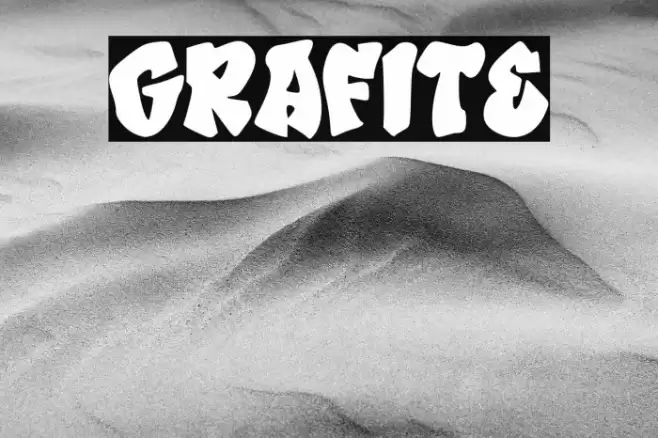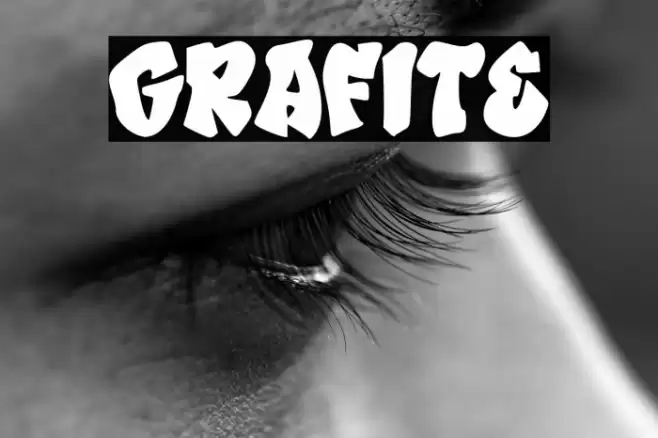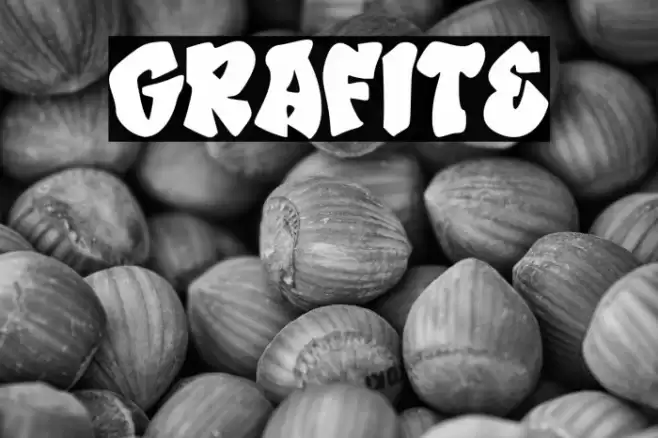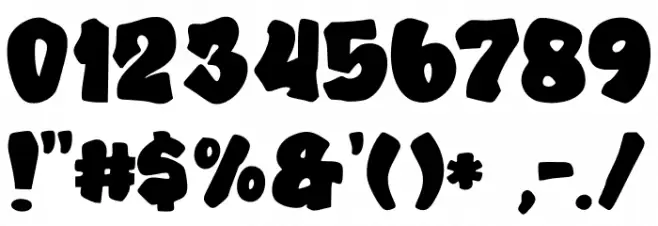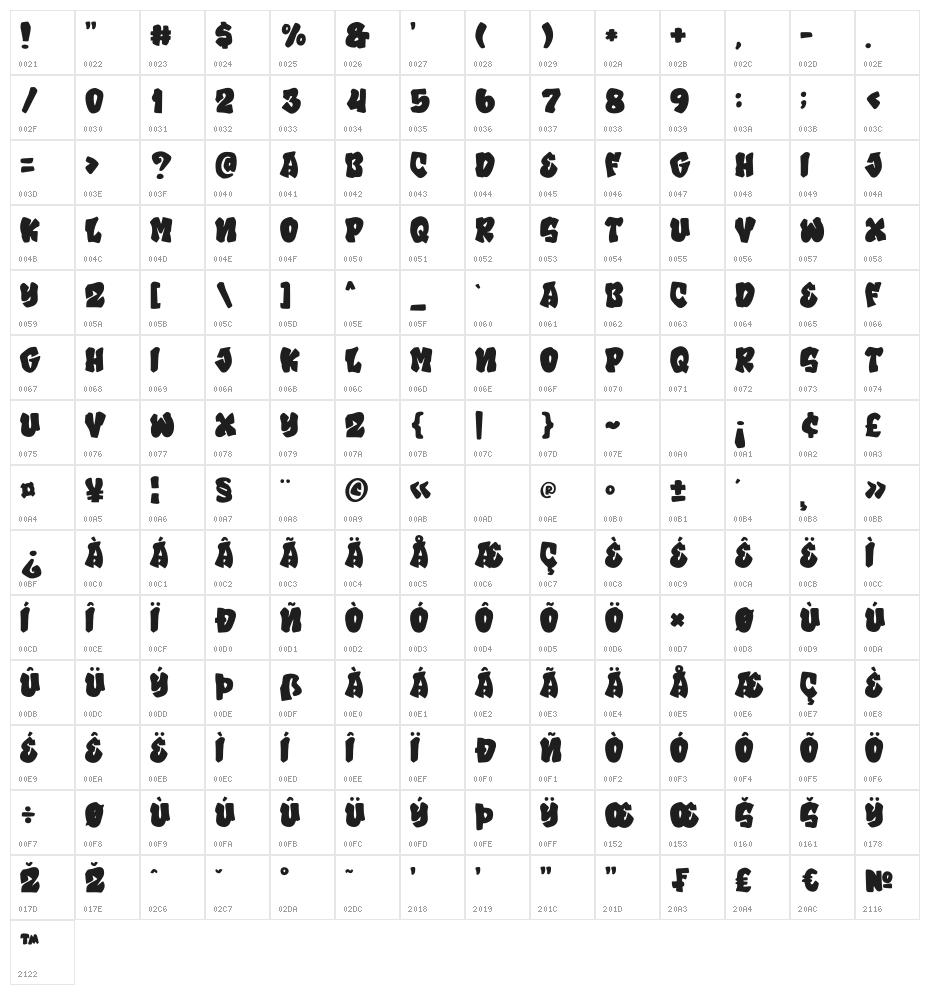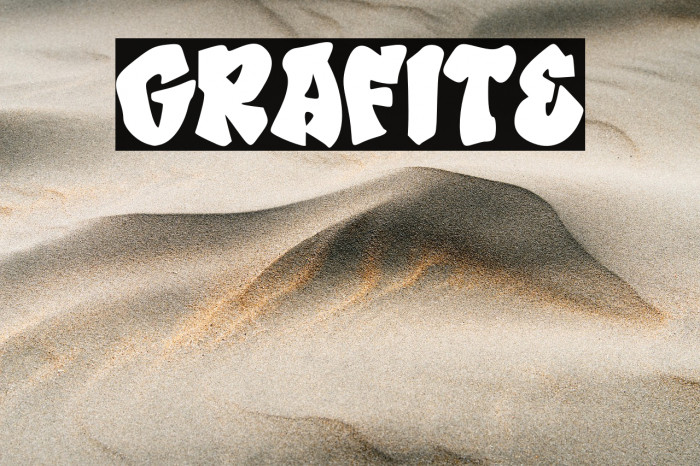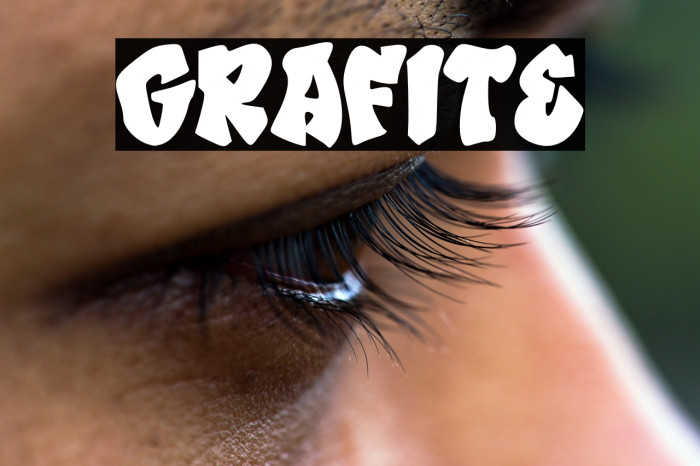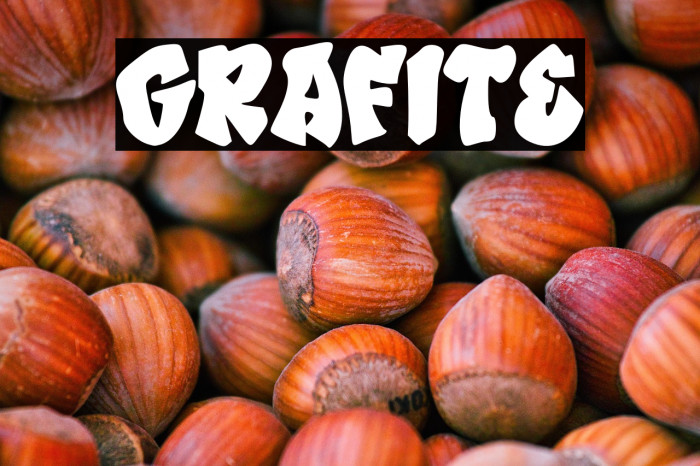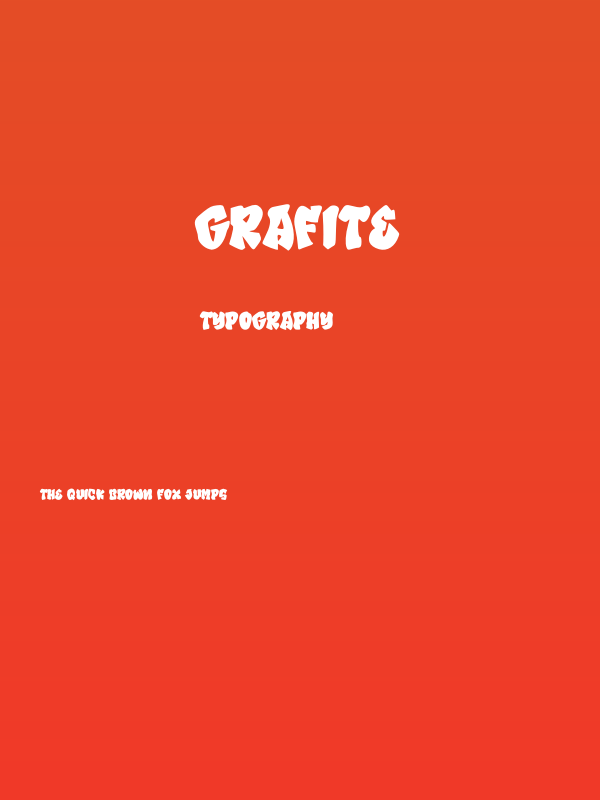
Grafite Font
Grafite Description
This font exhibits a bold and dynamic style, reminiscent of graffiti art. The characters are thick and robust, with an irregular and playful form that captures the essence of street art. The uppercase and lowercase letters maintain a consistent weight, creating a cohesive look. The numbers and special characters follow the same bold and expressive design, making them stand out. This font is ideal for projects that require a strong visual impact and a sense of urban culture.
A bold, graffiti-inspired font with a dynamic and playful style from Uncategorized fonts.
- Proposed Projects: Perfect for street art designs, urban-themed posters, music album covers, and edgy branding projects.
- Overall Style: Modern, Urban